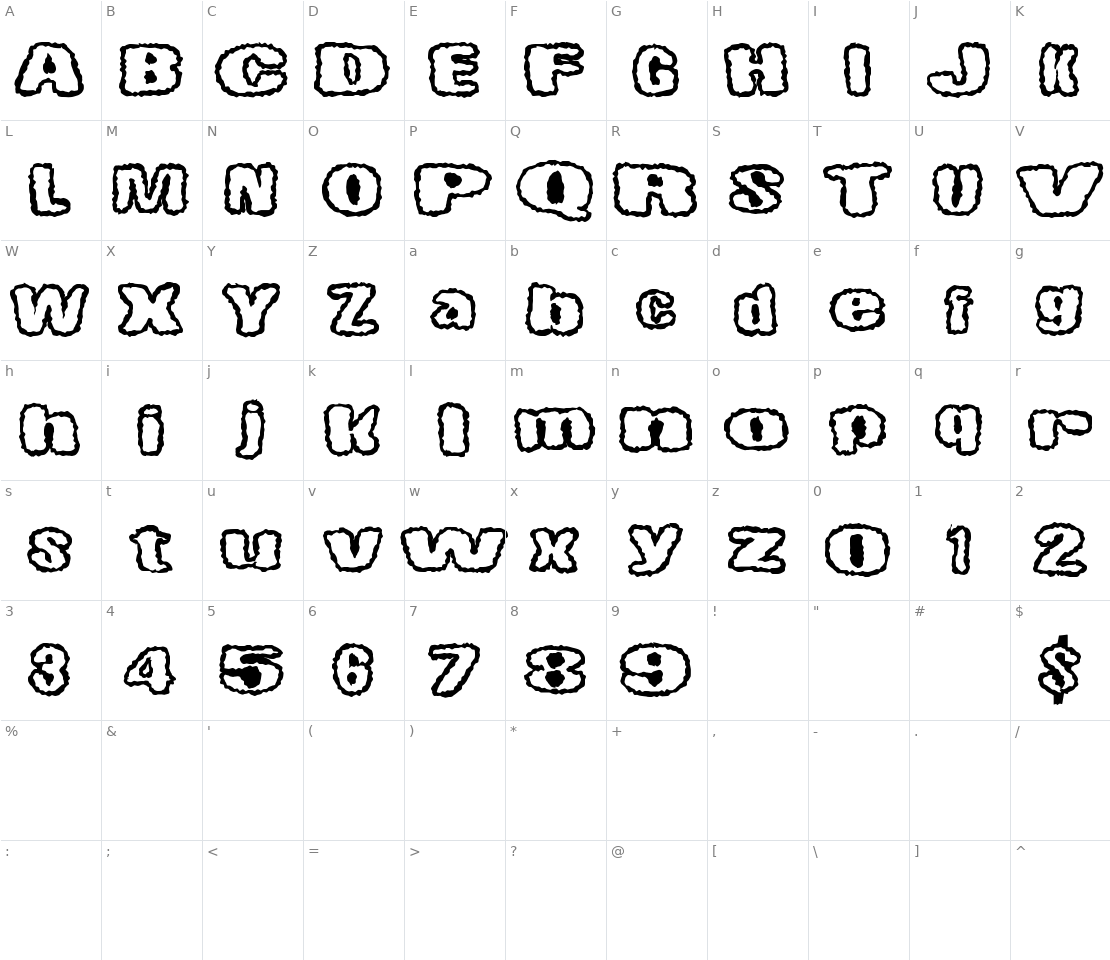
Little Spooky
Little Spooky is a decorative display face from Xerographer Fonts with outlined, distressed letterforms that have a hand-carved, slightly unsteady quality to them. The rough edges and hollow strokes give it a creepy but approachable feel, more haunted house invitation than genuine horror. A good pick for Halloween-themed headlines, event posters, and seasonal packaging where you want spooky without going full nightmare.